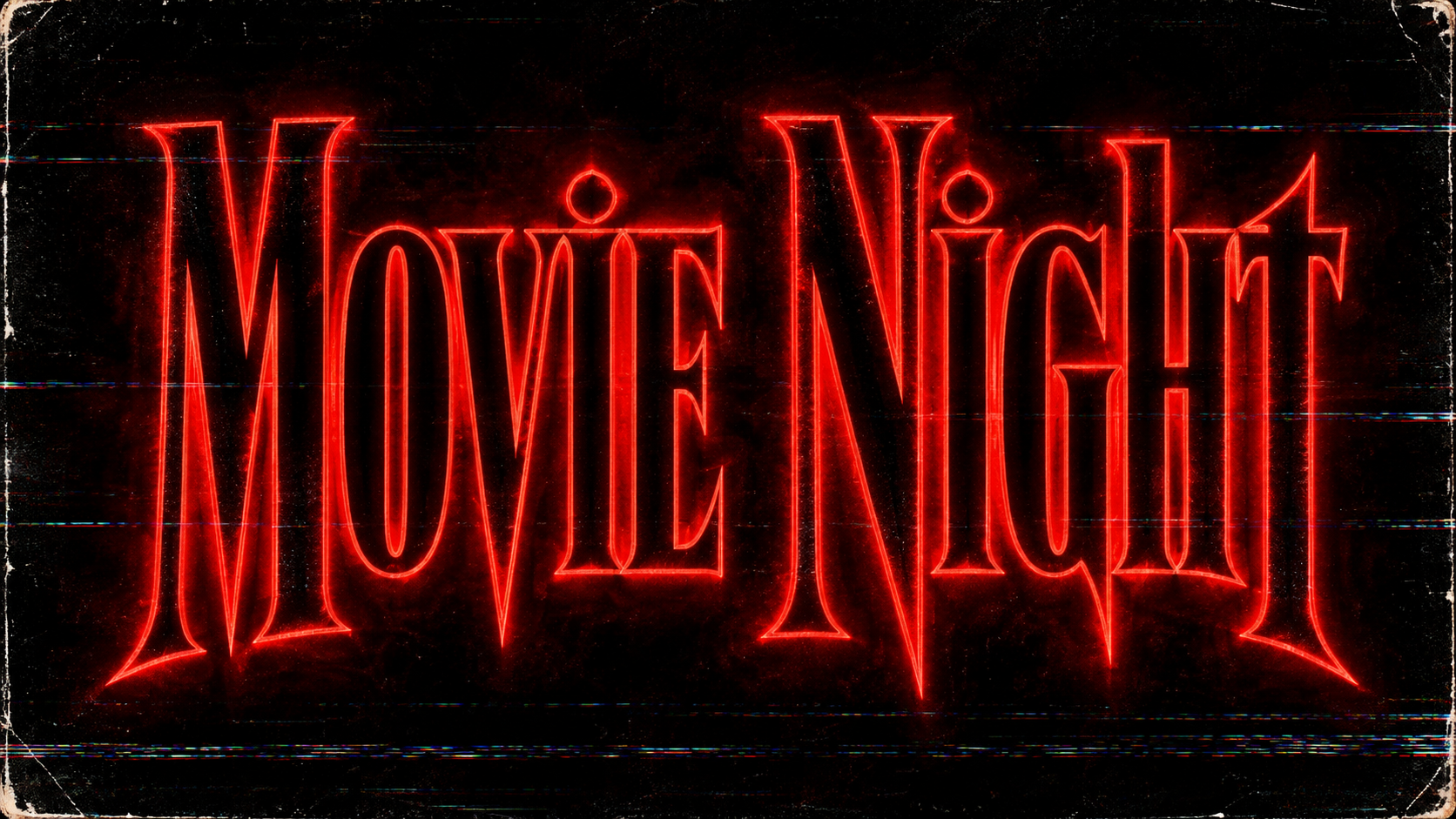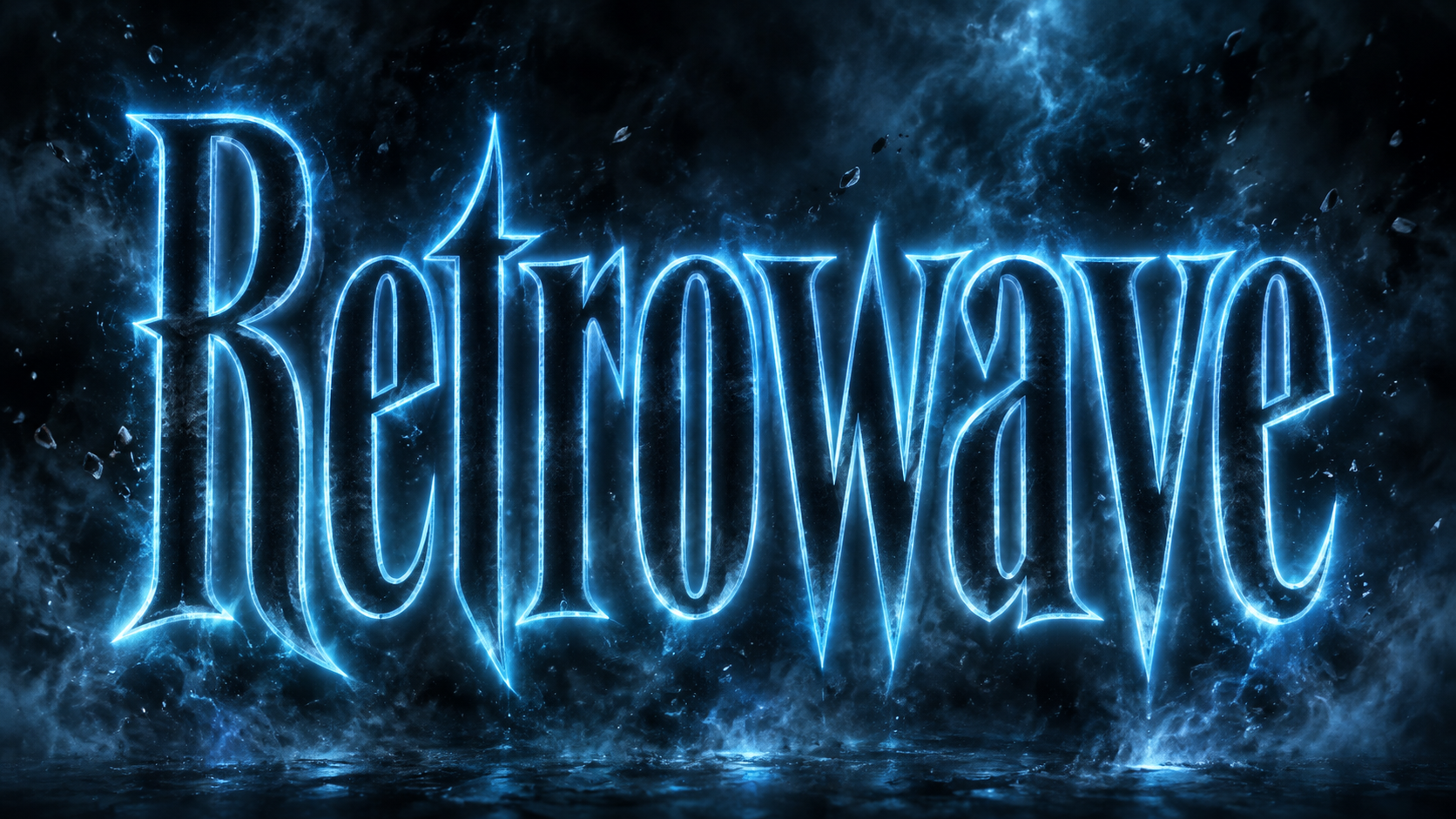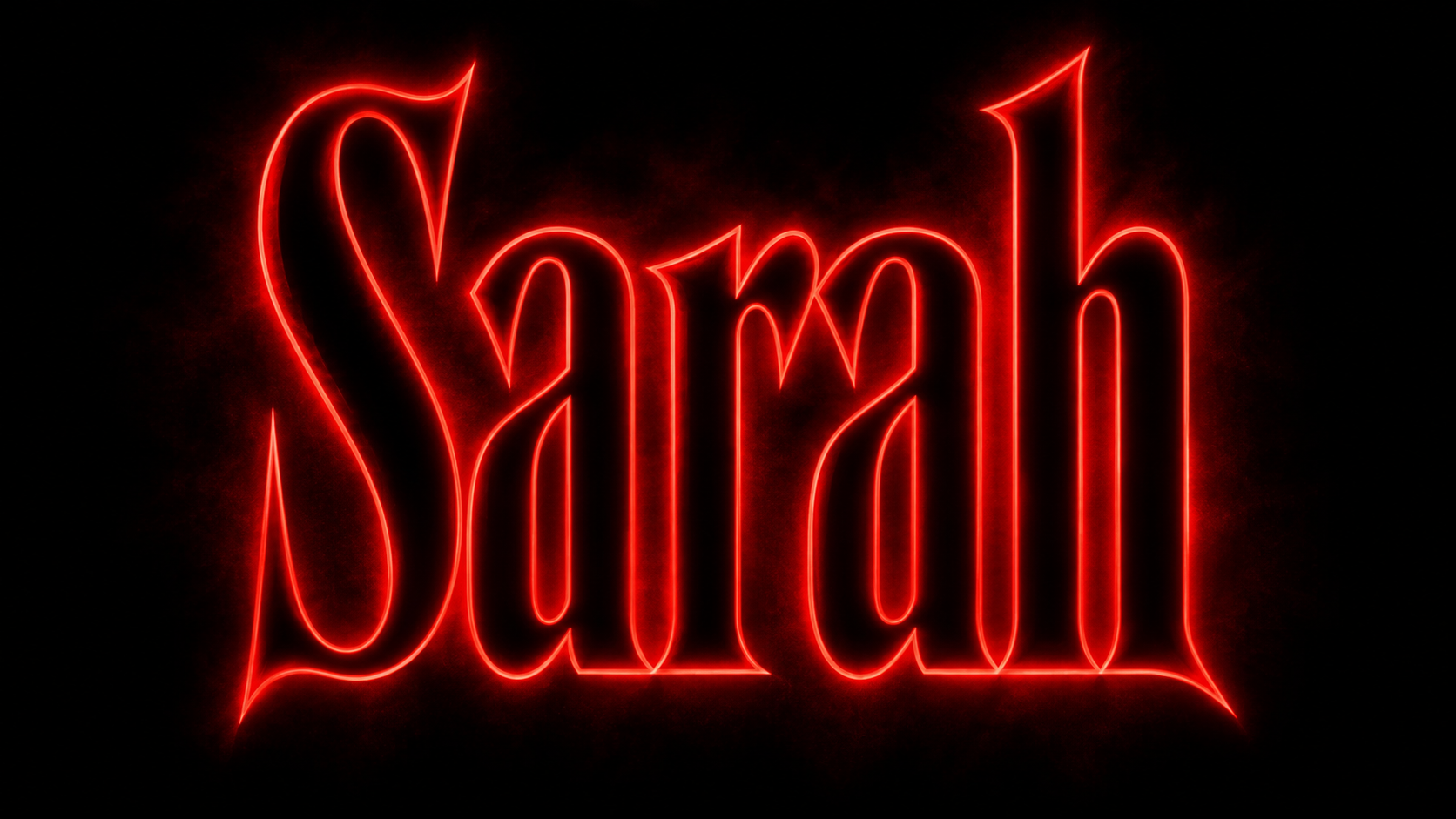
Tall red serif capitals with a glowing outline and neon bloom, inspired by 80s horror paperbacks. Fan-made.
glowing red outlined serif capitals with dark hollow centers and soft crimson bloom, classic retro title
Red Glow is the clearest starting point for a short serif title on dark artwork.
VHS Tape adds aged tape texture; test readability when the image is reduced in your editor.
The Stranger Things title is a custom treatment of ITC Benguiat, a 1970s phototype serif you license from Monotype — that is the file people mean when they ask what font the show uses. Fontique does not redistribute Benguiat or the series logo. This generator renders your own name as an original 80s horror-paperback title: tall condensed red serifs, glowing outlines, letters stretching toward each other, neon bloom on black.
Presets explore the era. Red Glow is the classic outlined serif with bloom, Cold Blue flips the palette into icy light with floating particles, VHS Tape adds tracking lines and tape grain, Paperback Cover sets your name in embossed foil on a worn cover, and Neon Arcade goes hot pink and cyan.
No. The series title is a custom treatment of ITC Benguiat, which we do not host or reproduce. This generator renders your words as an original 80s horror-paperback PNG — inspired by the era, not a copy of the logo.